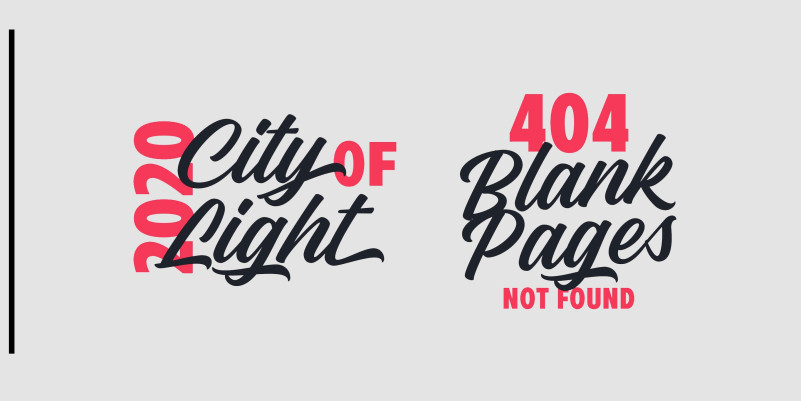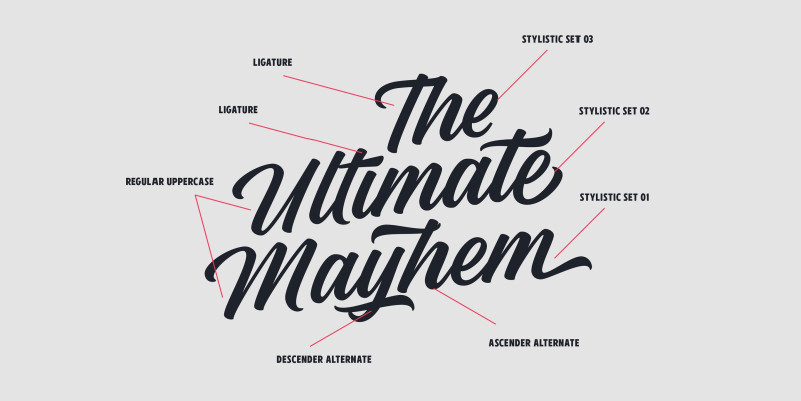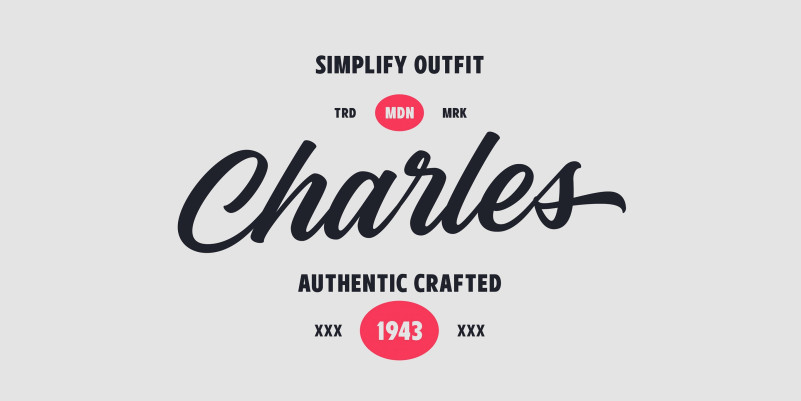
Simple Thread Script Font, is a modern retro calligraphy font. This font is casual and beautiful with swashes. Can be used for various purposes such as logos, product packaging, wedding invitations, branding, headlines, signage, labels, signatures, book covers, posters, quotes, and more.
Use underscore _ anywhere in a word to make an underline.
Example: Love_letter
Use multiple underscores to make different swashes.
Example: Base_____ball
Use numbersign # after any letter to make a swash.
Example: Hello# Welcome#